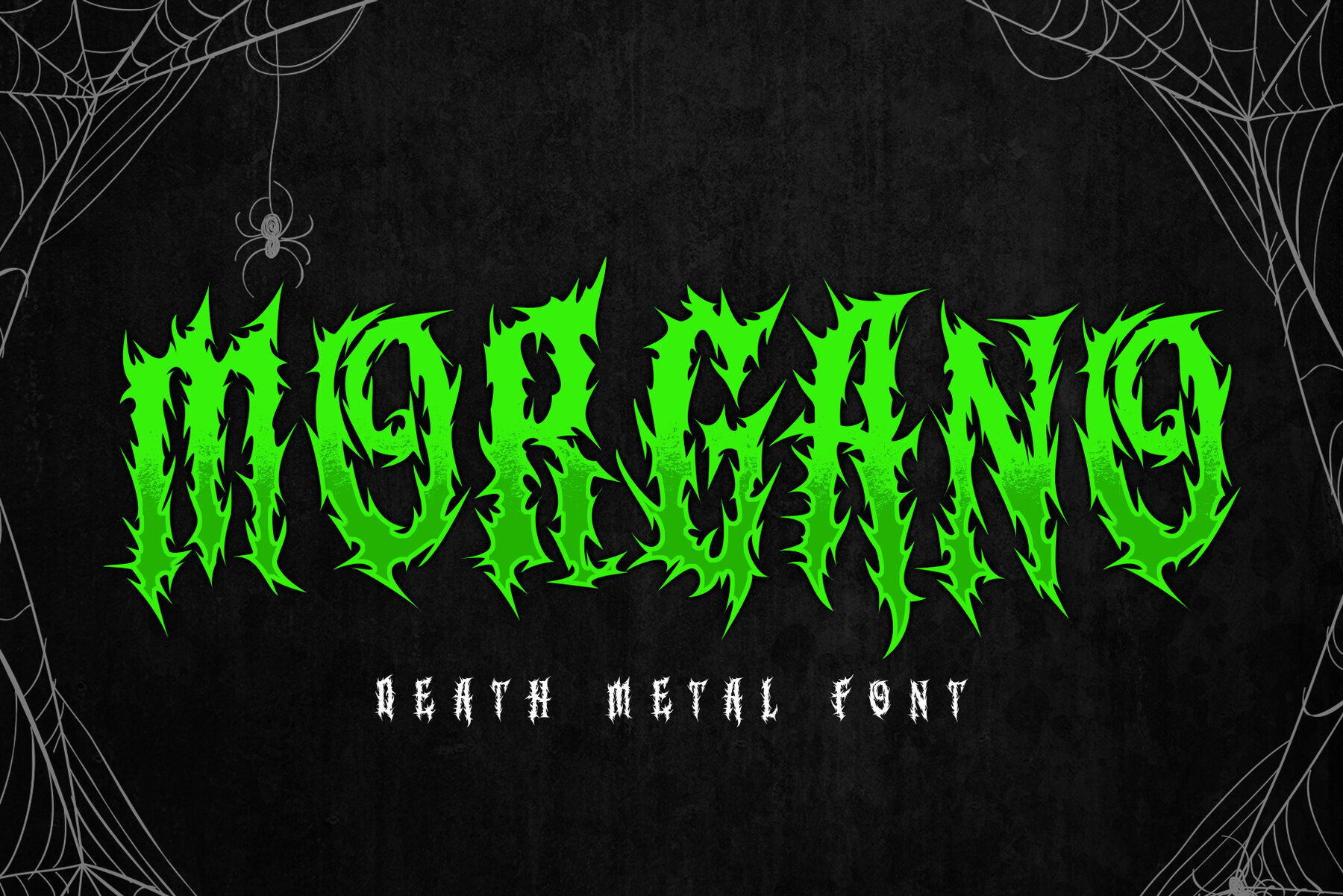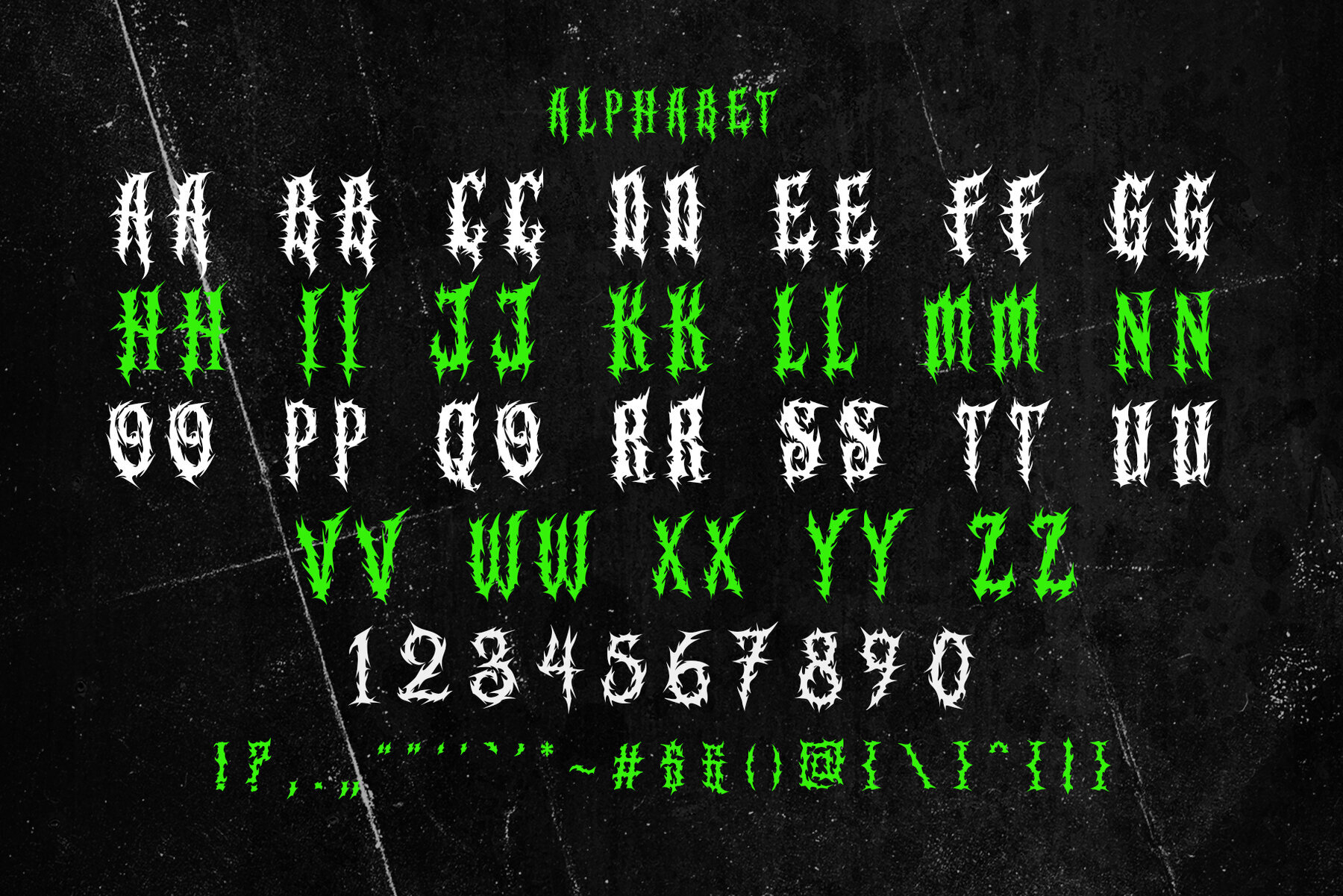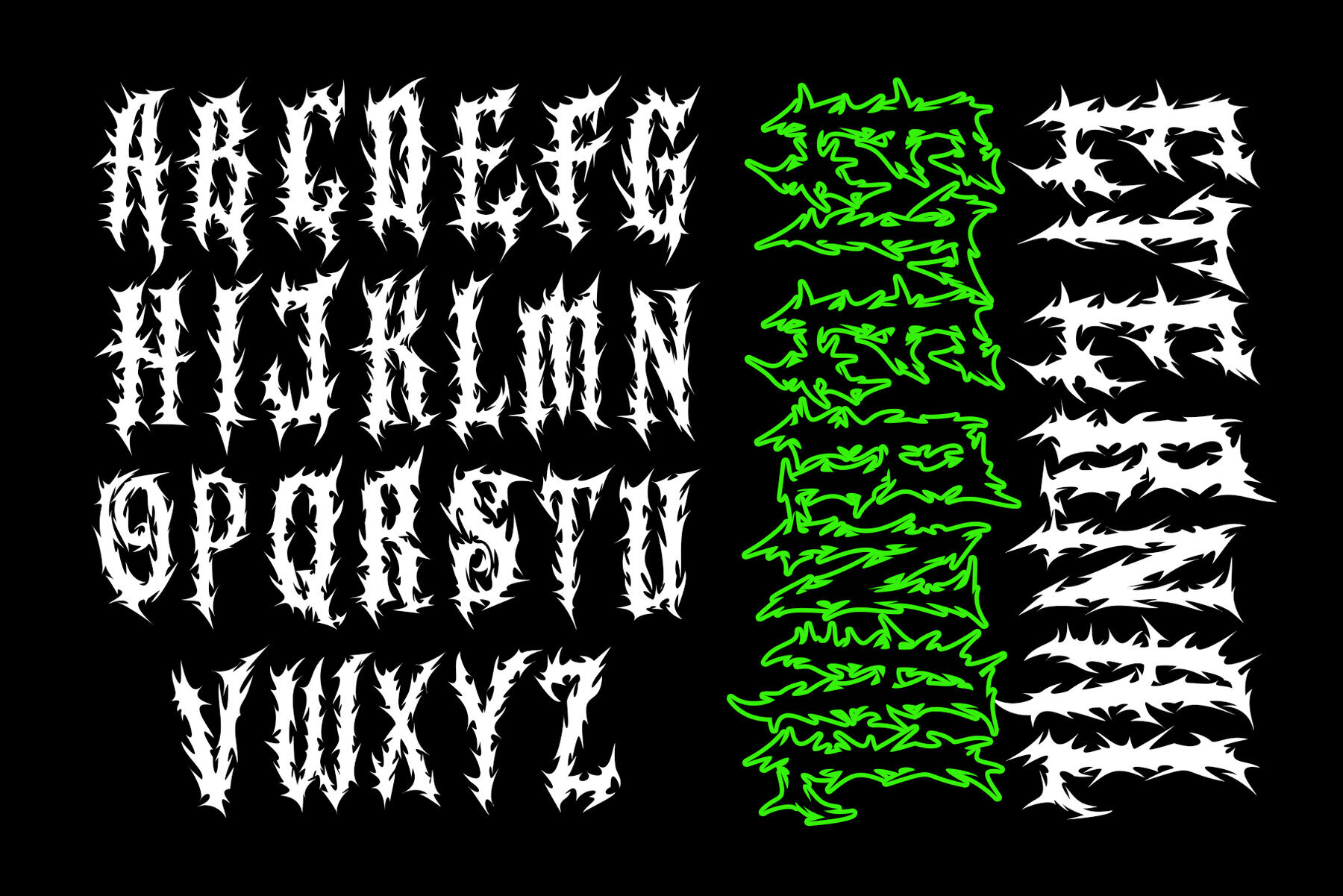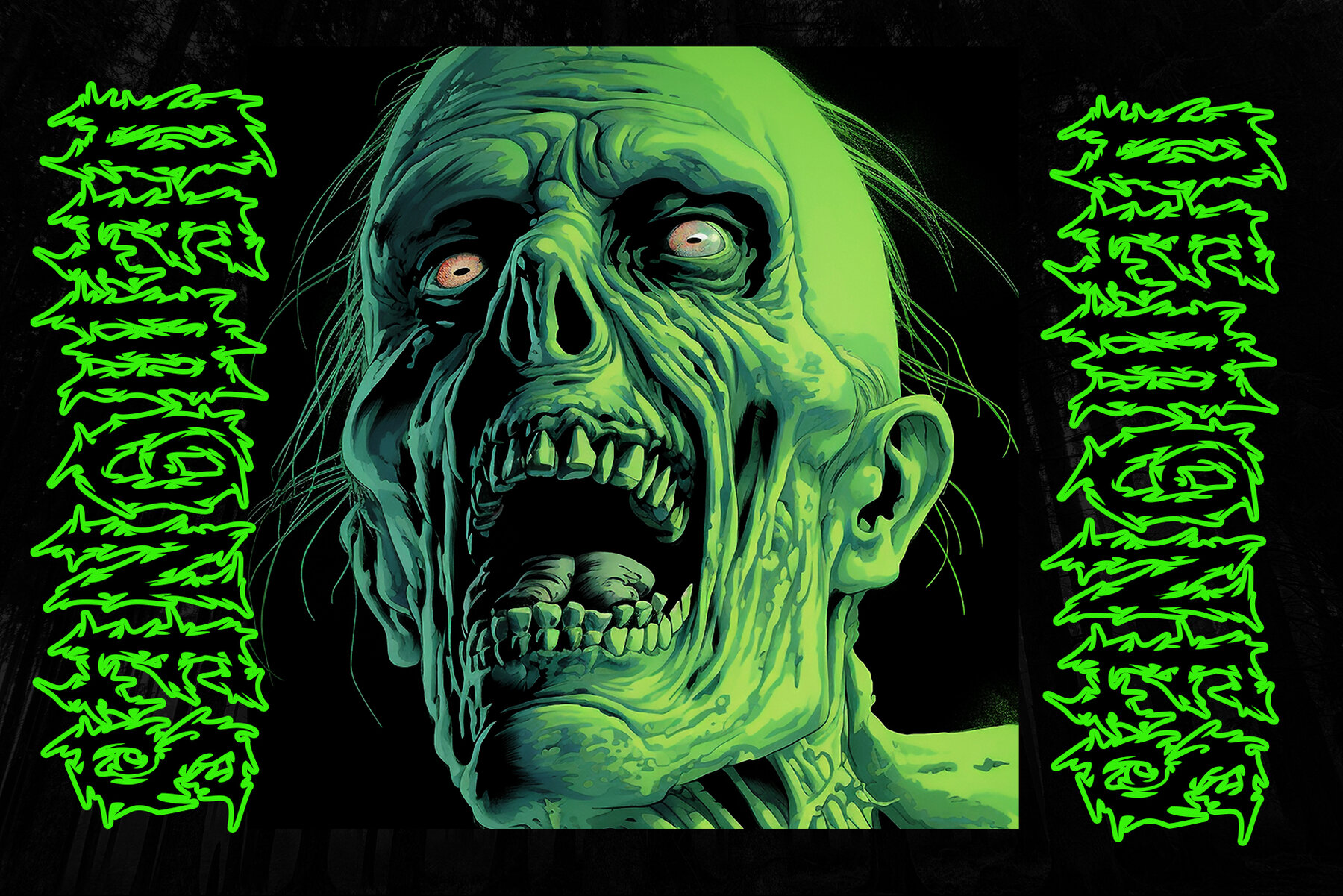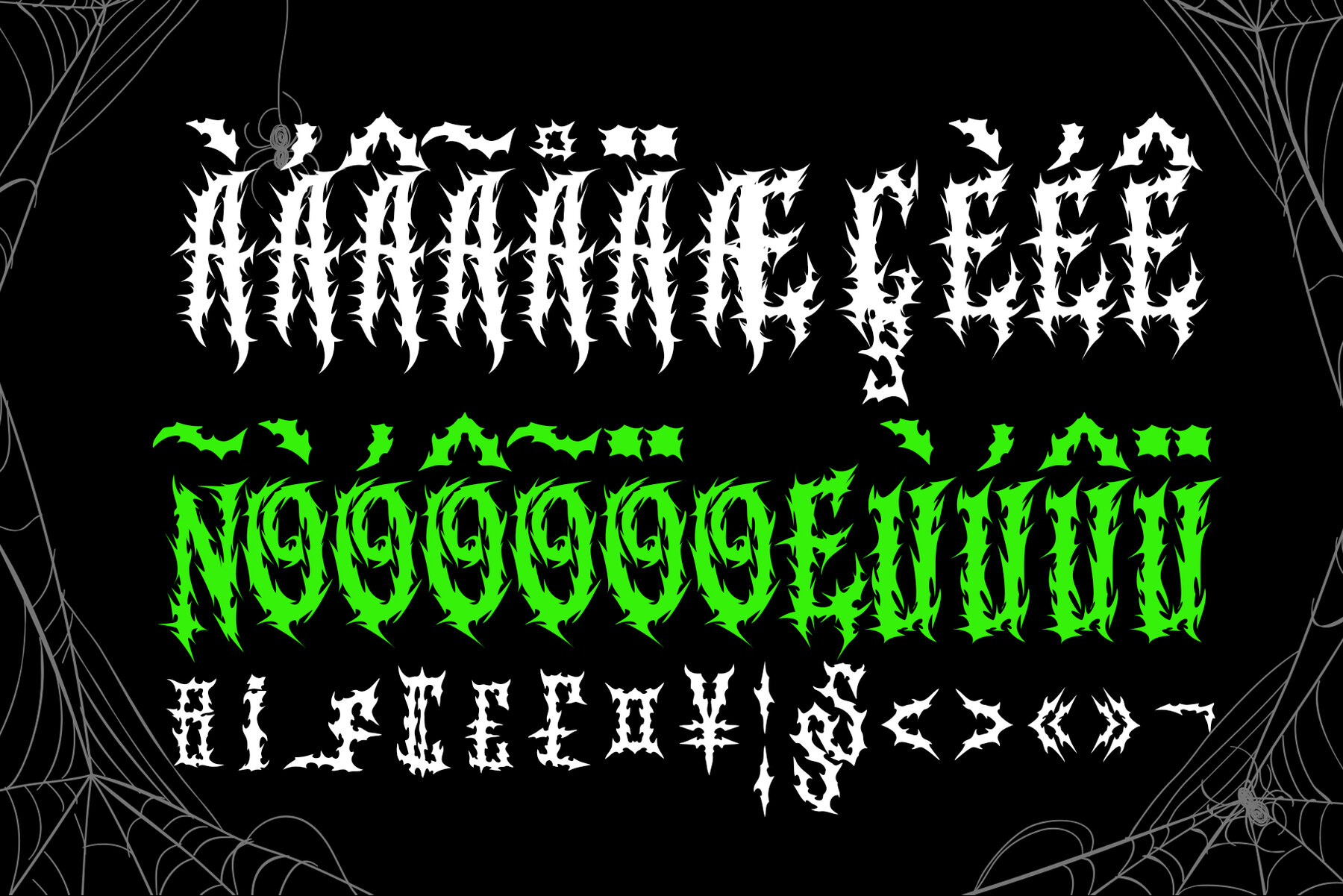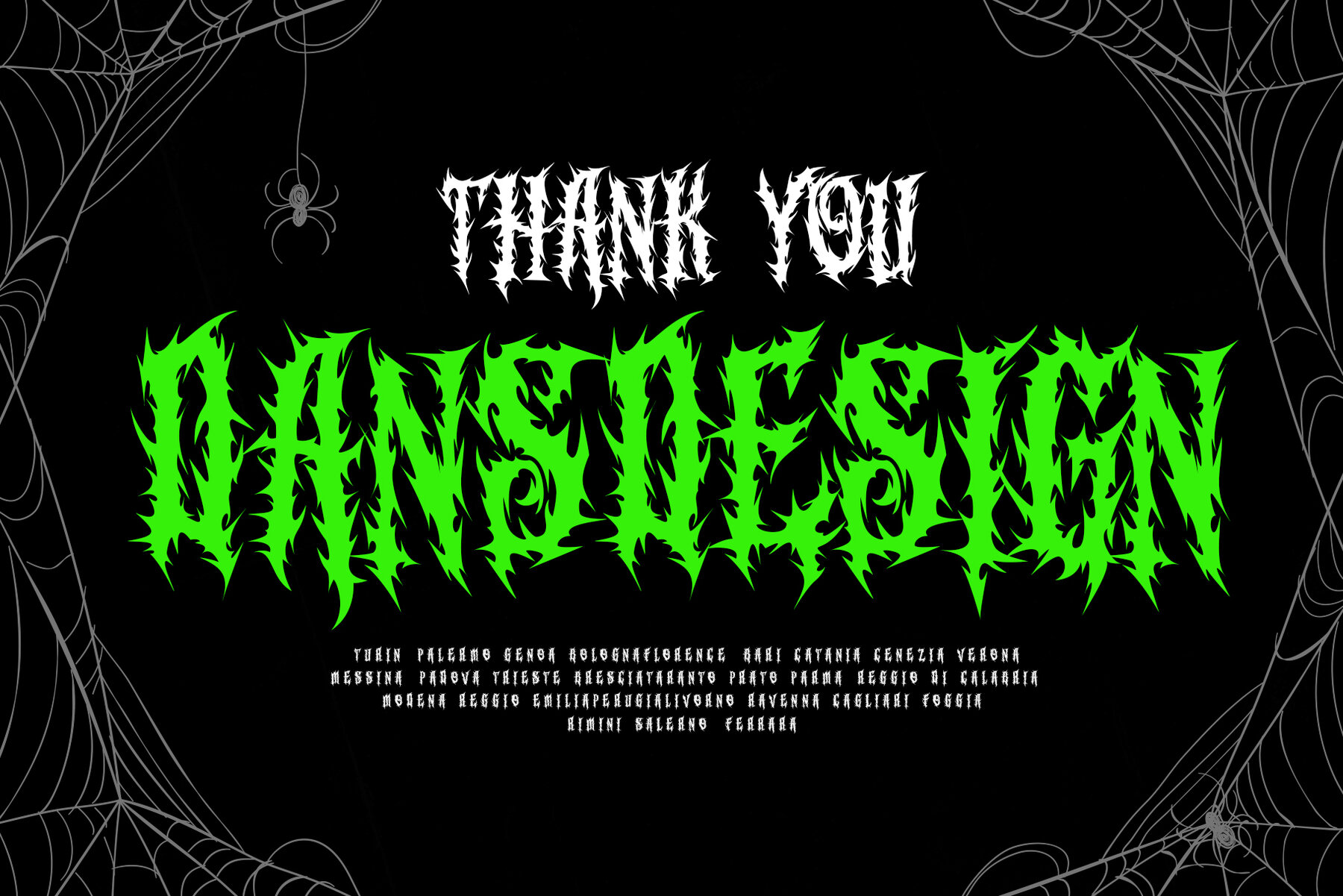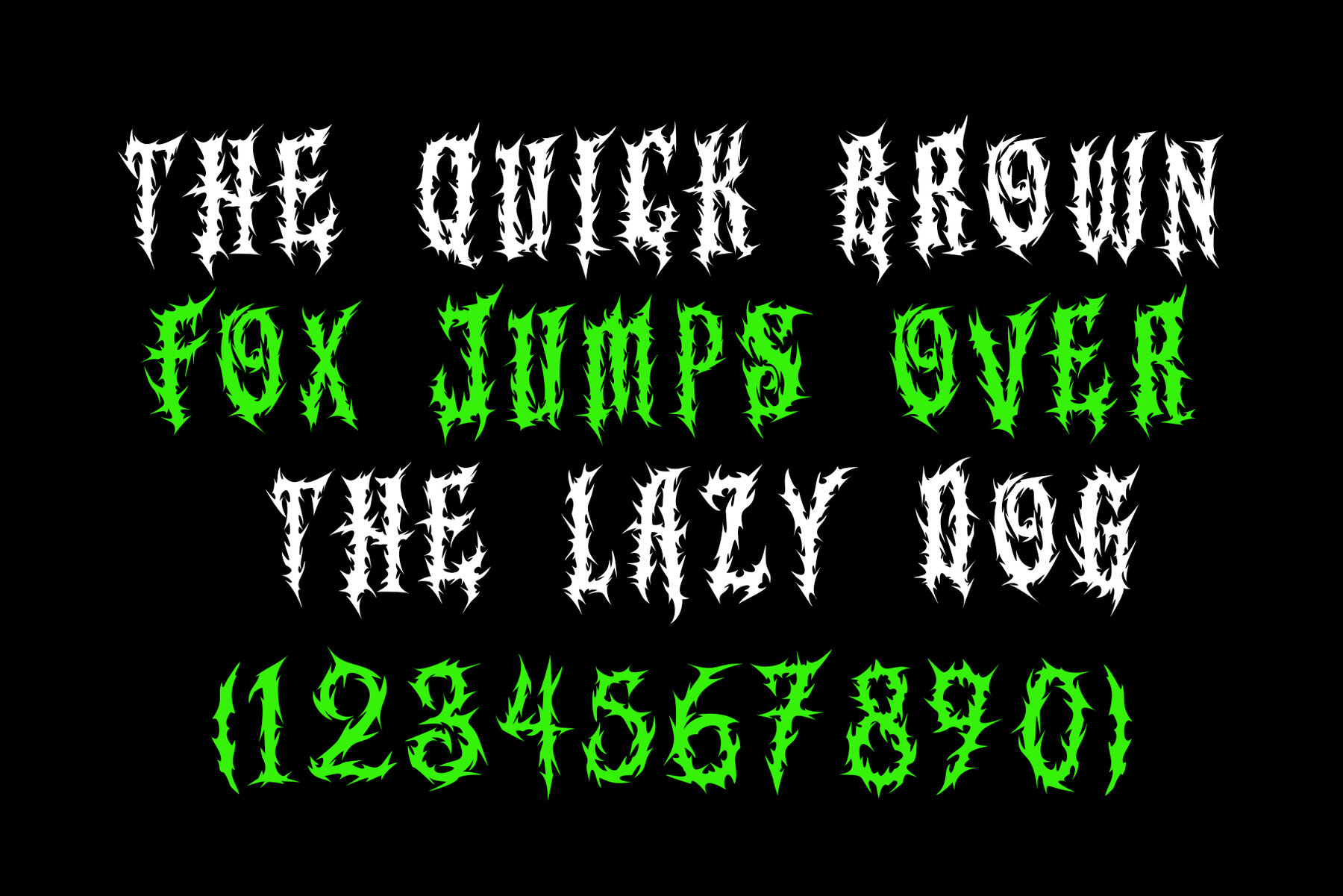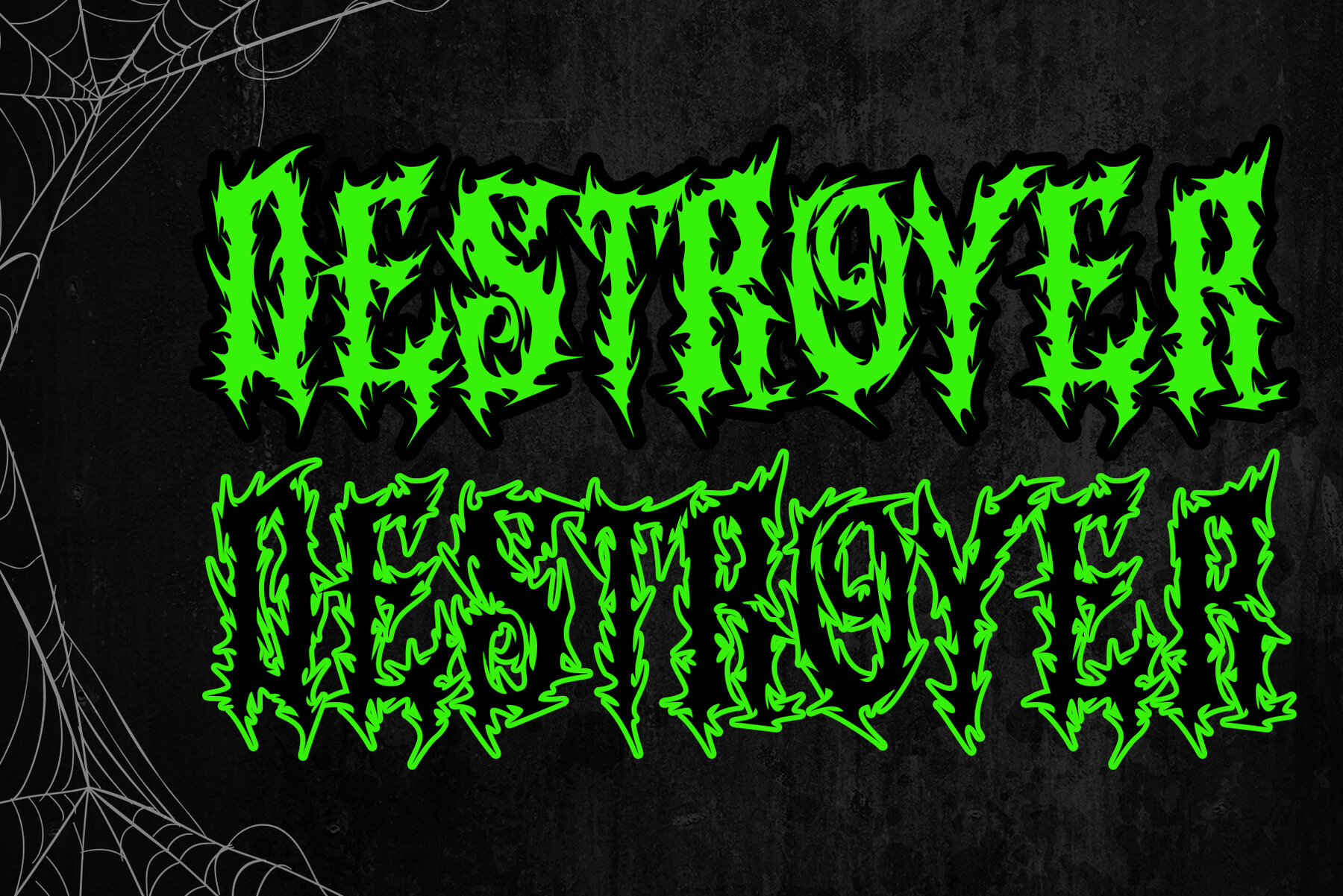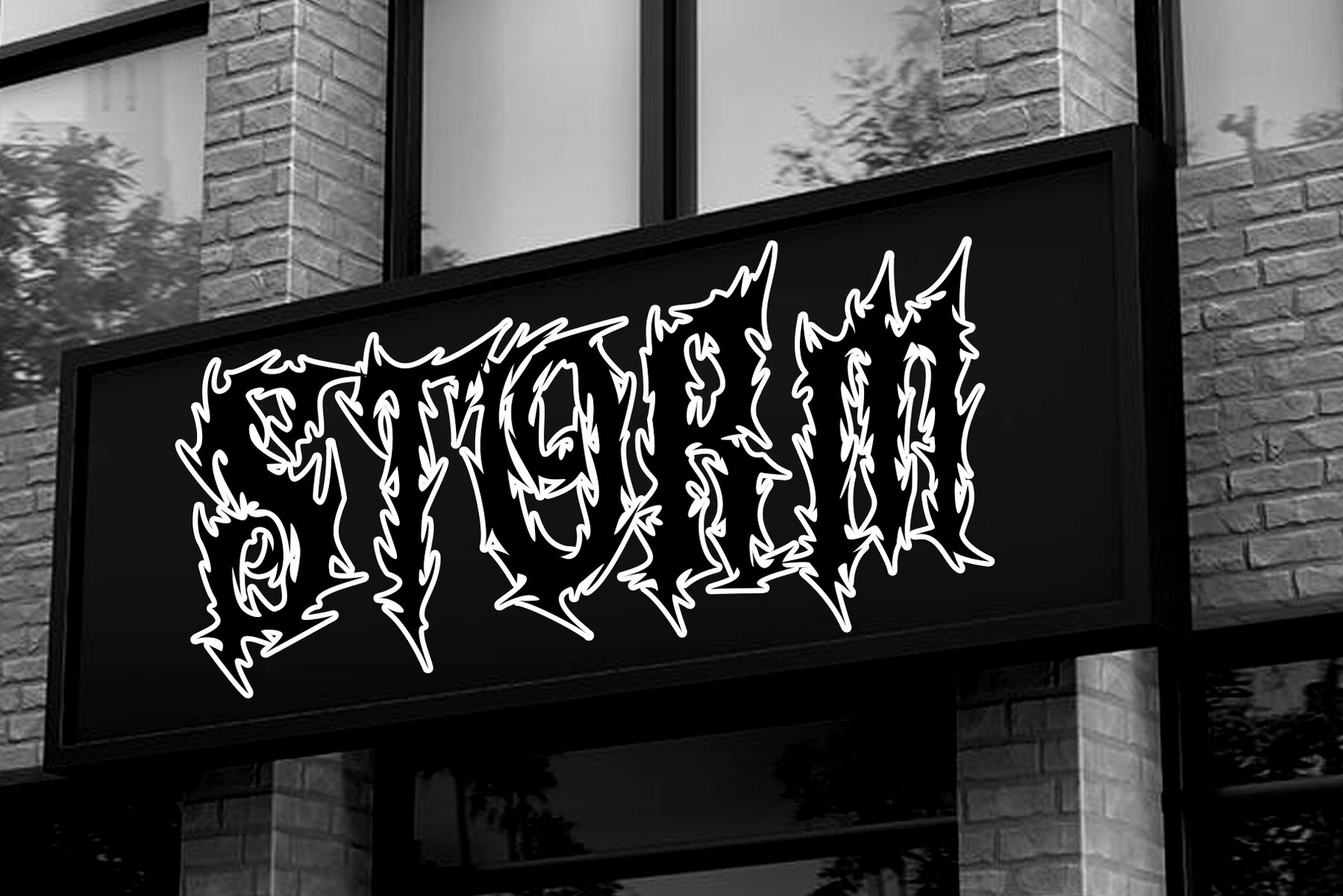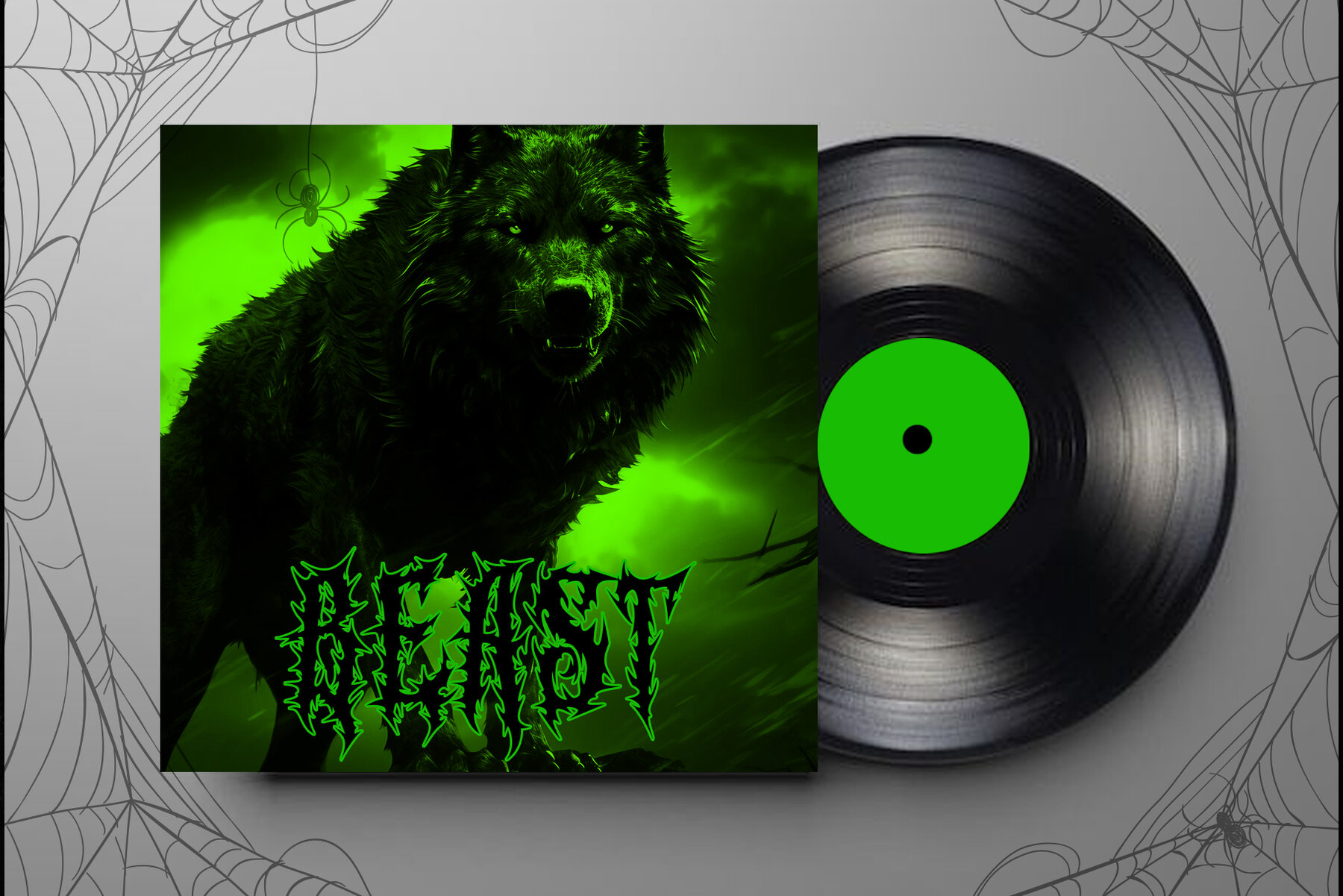
MORGANO Font
MORGANO
MORGANO blends the fierce tradition of blackletter with the raw energy of metal and horror. This highly detailed typeface, distinguished by its sharp edges and dramatic strokes, is designed to convey a fearless and sinister atmosphere. Whether you're crafting logos for metal bands, posters for horror movies, or edgy album covers, MORGANO is your go-to choice for designs that demand boldness and rebellion.MORGANO: Modern Blackletter Metal Horror Font